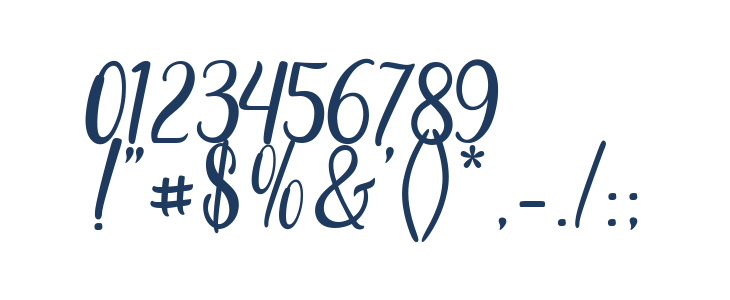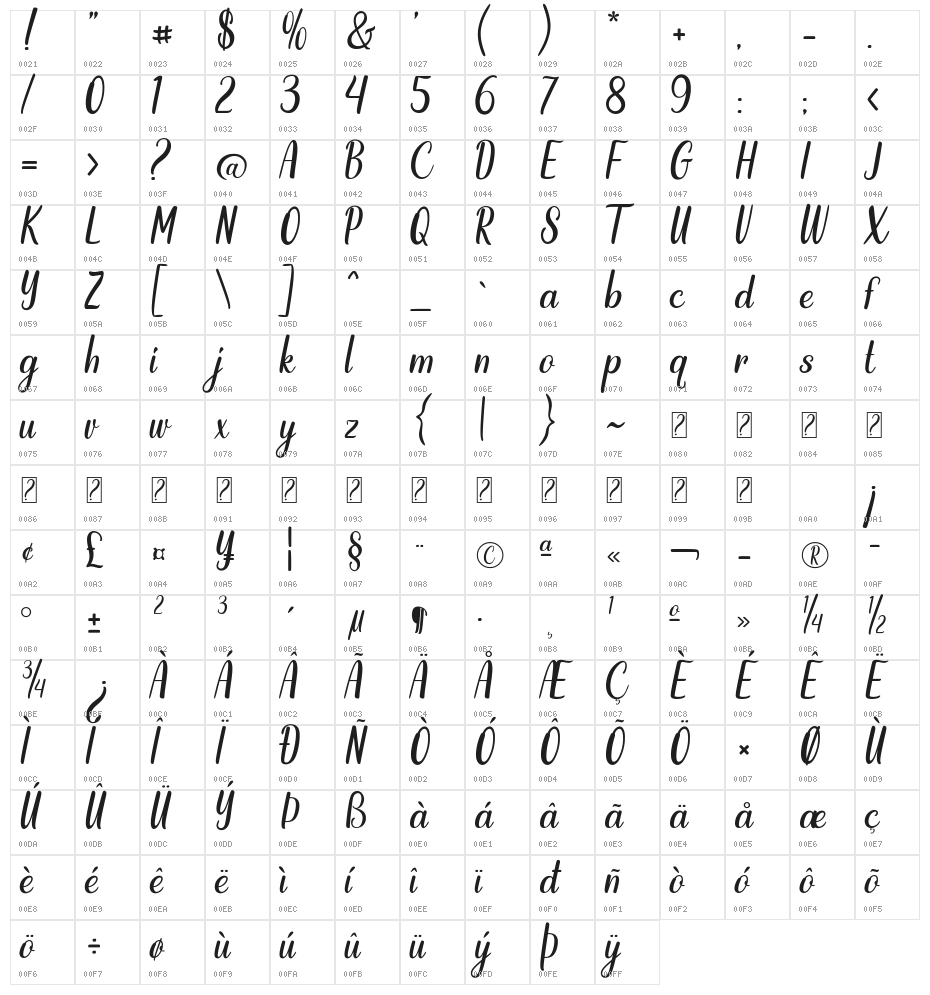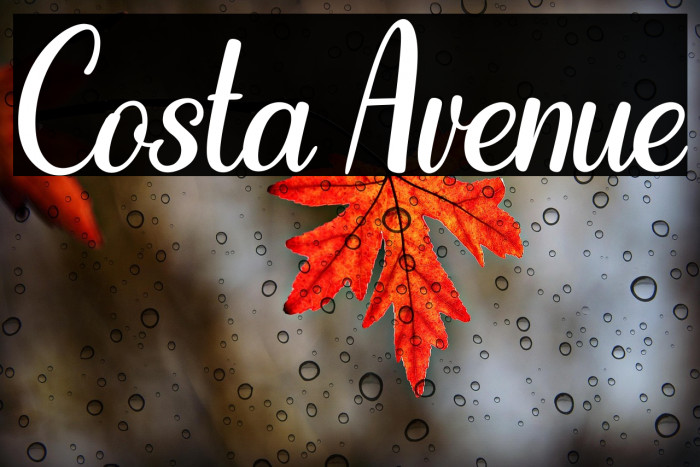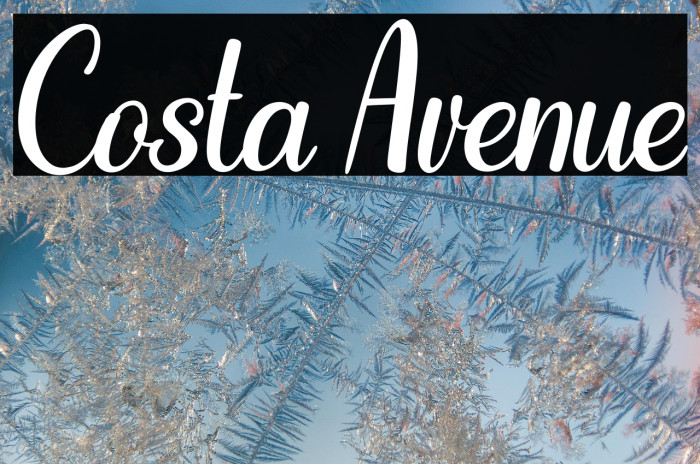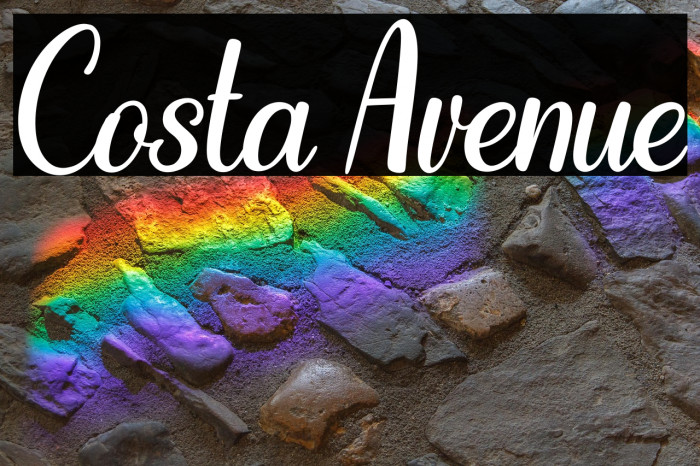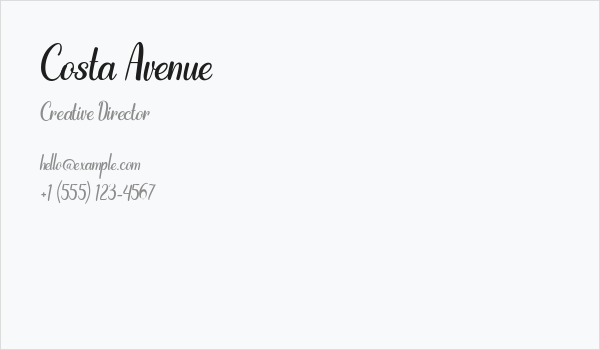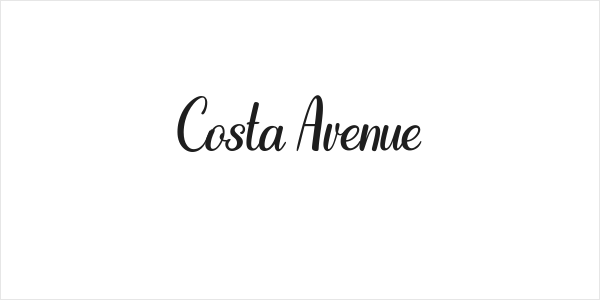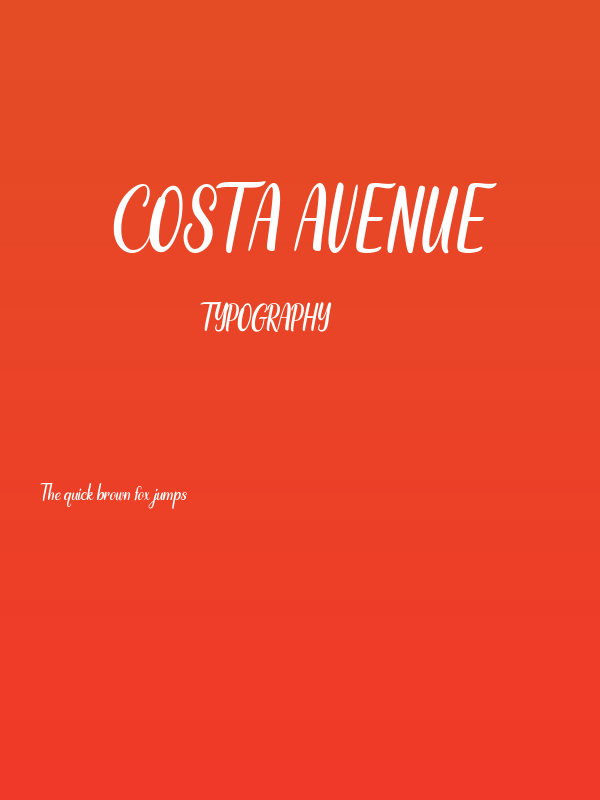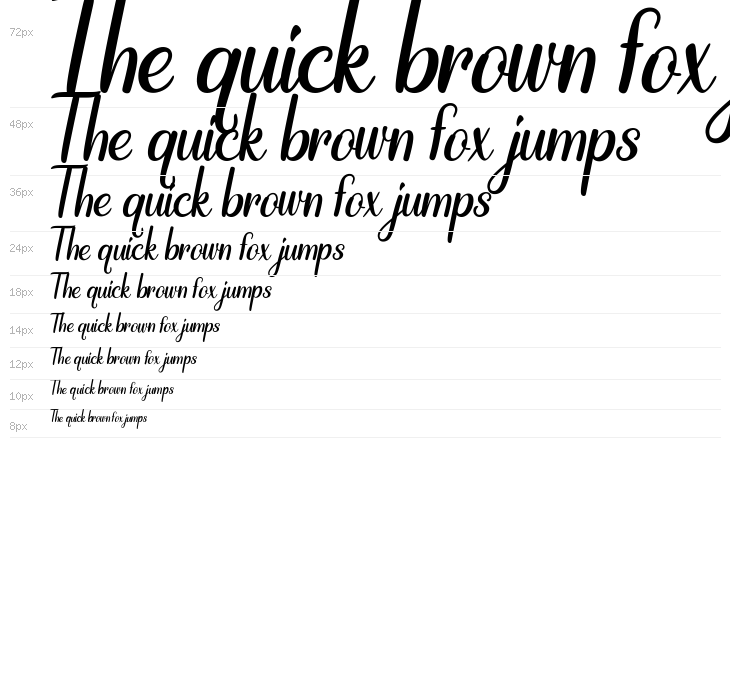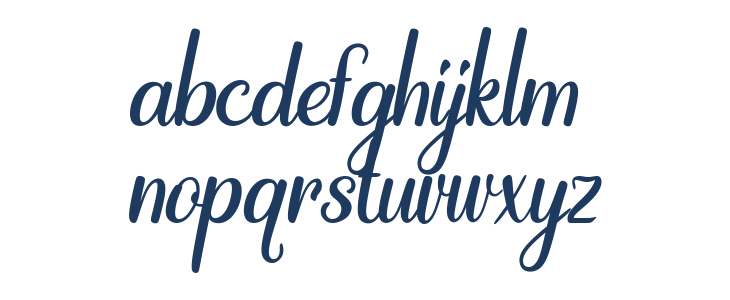
Costa Avenue Font
Costa Avenue Description
This font features a dynamic and flowing script style, characterized by its elegant, cursive letterforms. The uppercase letters are tall and slightly slanted, giving a sense of movement and grace. The lowercase letters maintain a consistent flow, with smooth connections between each character. The numerals are stylish and maintain the same cursive aesthetic, providing a cohesive look across all characters. Special characters are designed to match the overall script style, ensuring versatility in various design contexts.